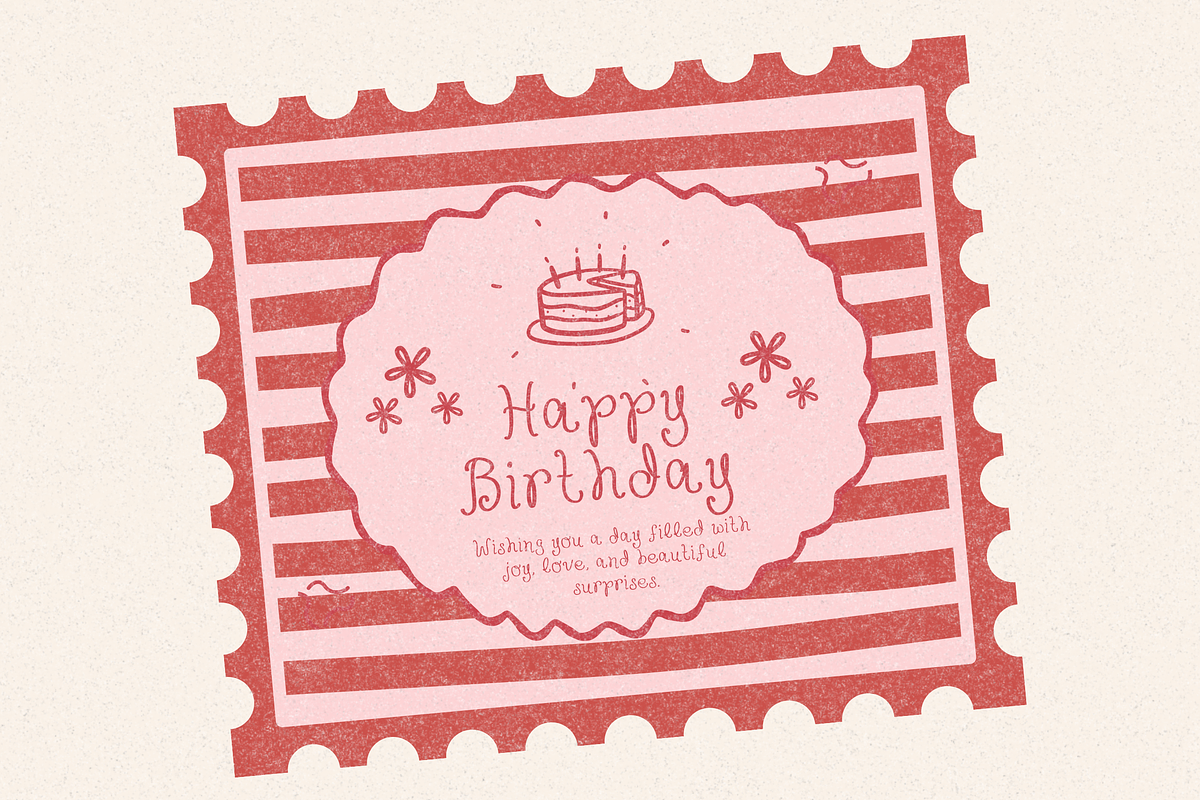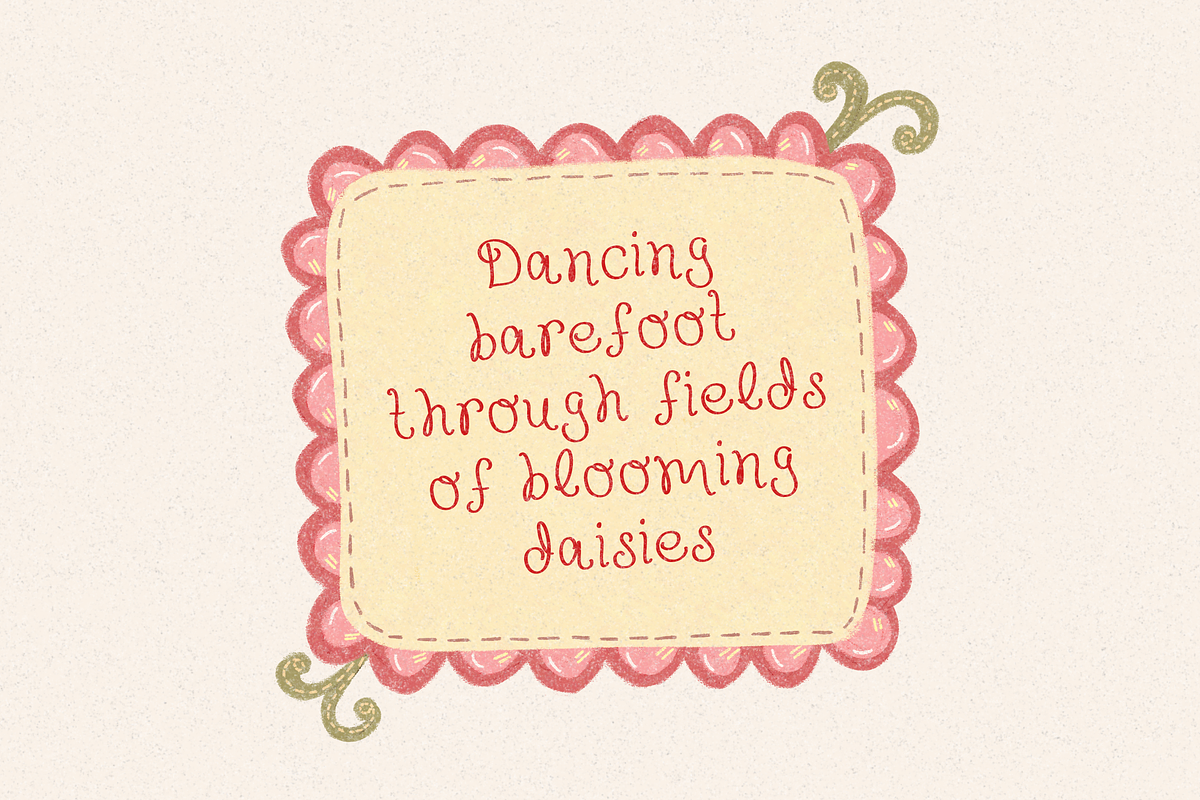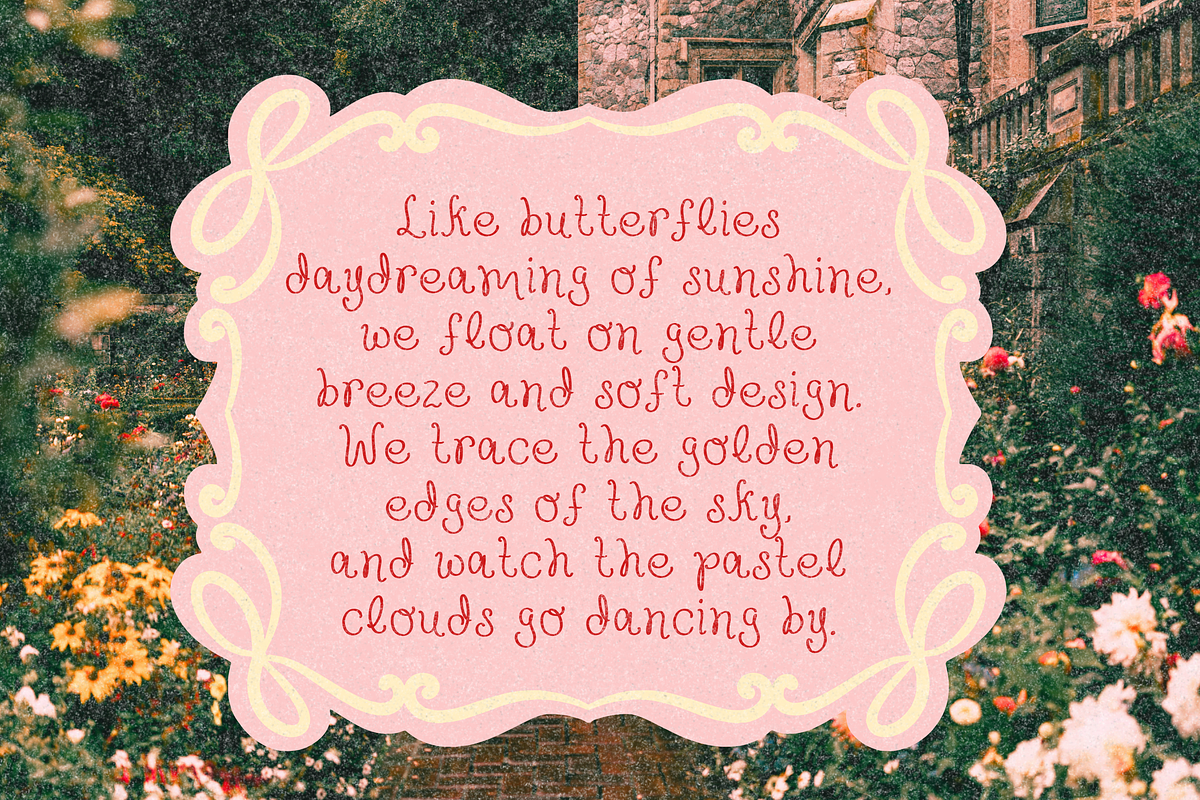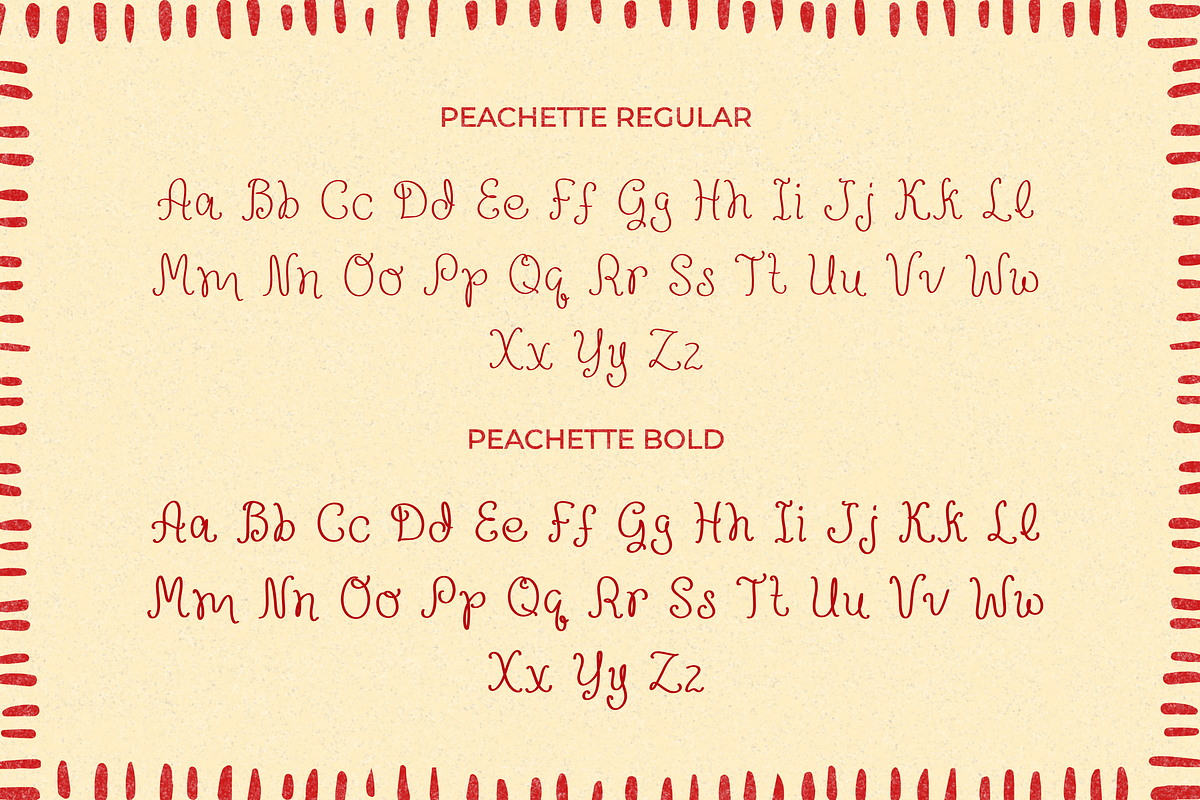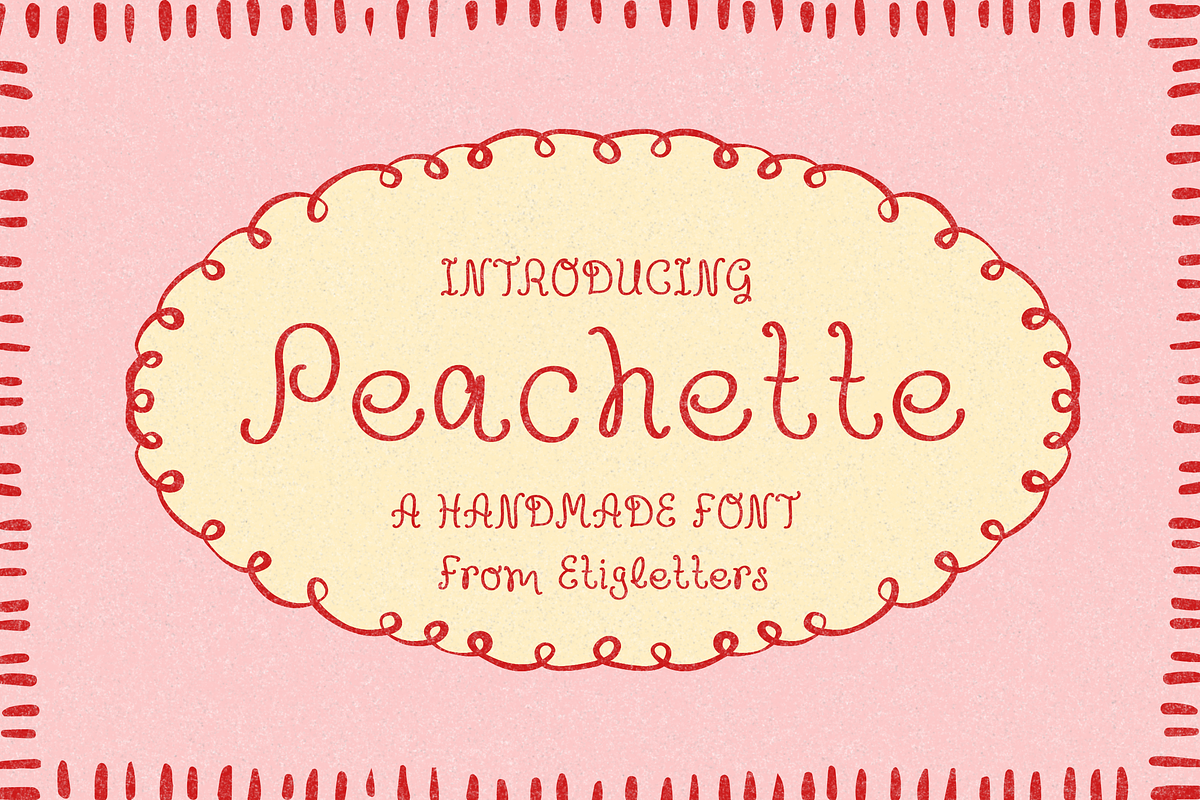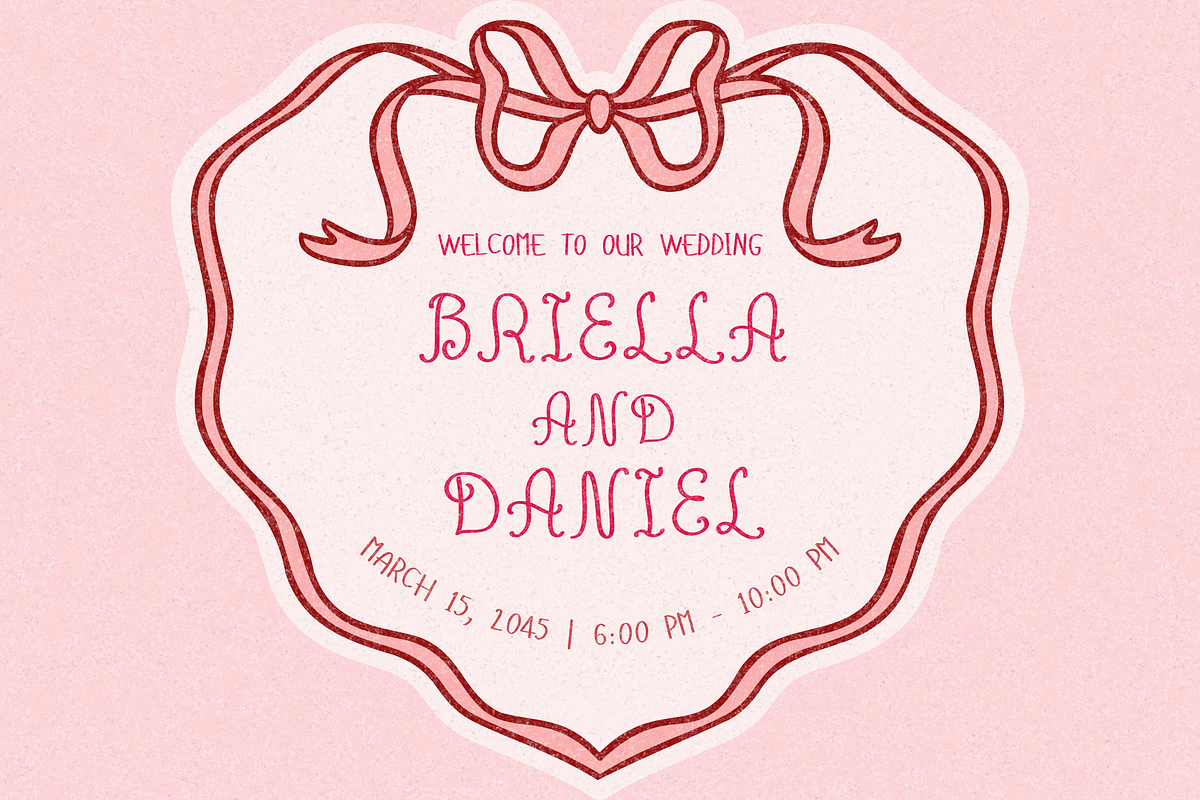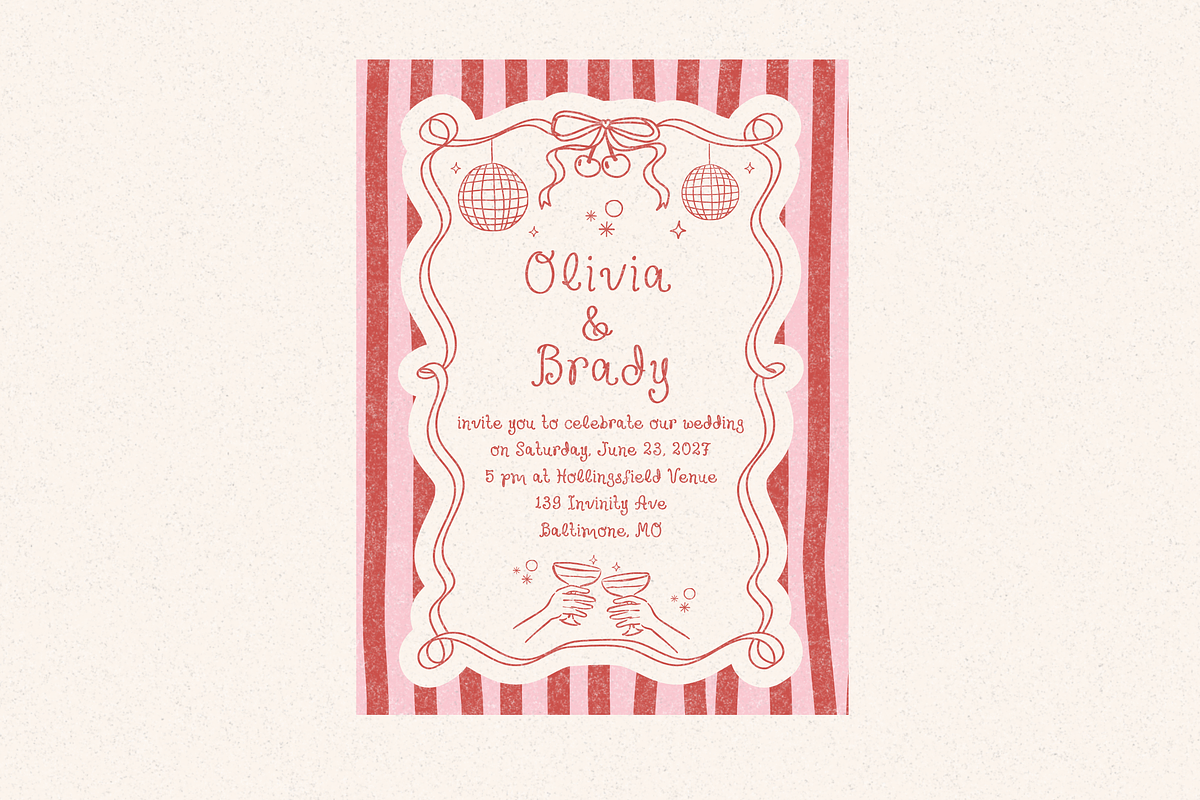
Peachette - A Playful Font
Introducing Peachette – A Playful Handmade Font
Sweet, cute, and full of personality! Peachette is a fun, whimsical handmade font designed to bring joy and warmth to your creative work. With its soft, hand-drawn curves and cheerful aesthetic, Peachette adds an instantly friendly and organic feel to any project.
Peachette is ideal for creators looking for a relaxed, playful, and expressive typeface that stands out on packaging, children’s products, custom stickers, and vibrant social media content.
Complete Uppercase and Lowercase characters
Numbers, Punctuation, and Symbols
- Product Packaging, Labels & Stickers
Children’s Books, Toys & Party Decor
Fun Branding & Logo Design
Quotes, Posters & Social Media Posts
Greeting Cards & Custom Merch